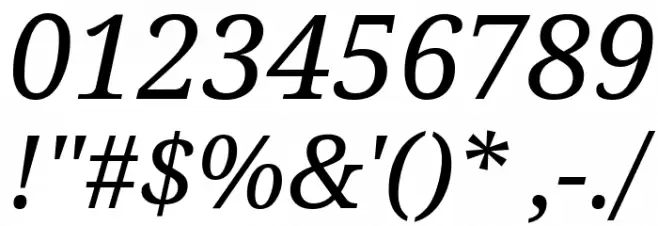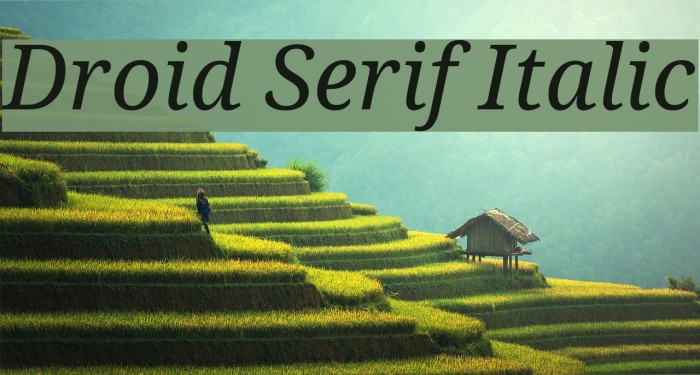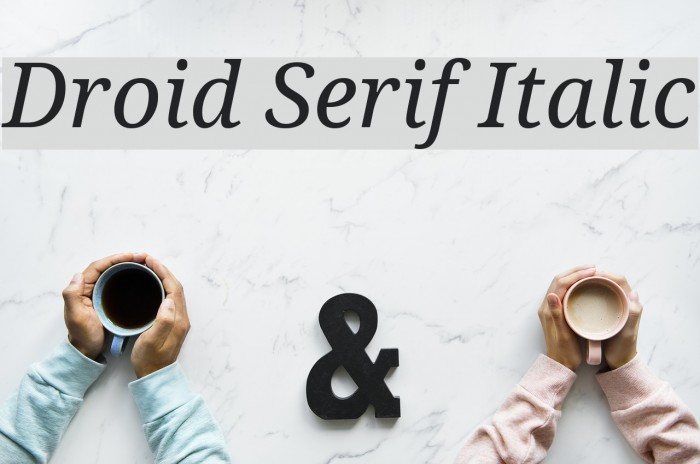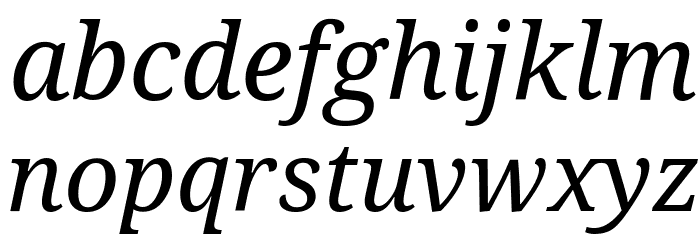
Droid Serif Italic Font
Droid Serif Italic Description
This font exhibits a classic serif style with a distinct italic slant, providing a sense of elegance and sophistication. The serifs are well-defined, adding a traditional touch to the overall appearance. The characters are slightly condensed, contributing to a refined and polished look. The stroke contrast is medium, ensuring readability while maintaining a stylish flair. The font's italic nature enhances its dynamic and fluid character, making it suitable for various formal and creative applications.
An elegant serif font with a classic italic slant and medium contrast from Uncategorized fonts.
- Proposed Projects: Ideal for editorial design, book covers, formal invitations, and elegant branding projects.
- Overall Style: Classic
- Use Case: Headlines, Body text, Editorial design